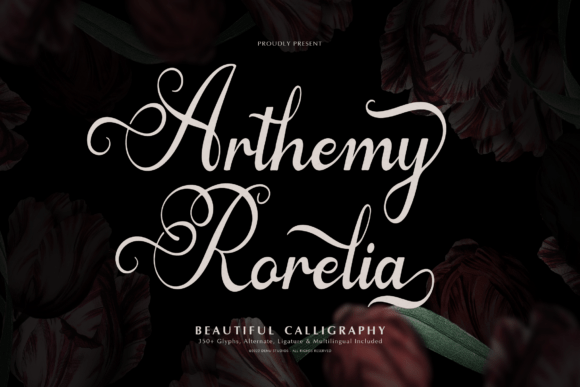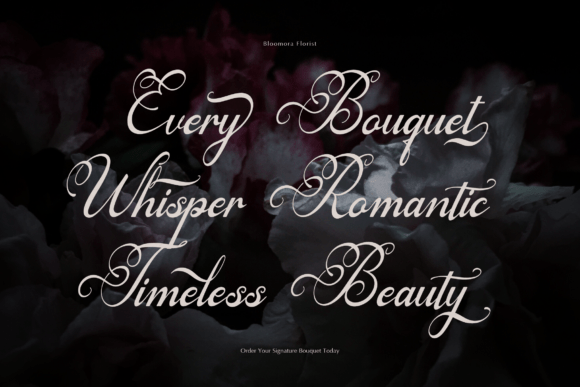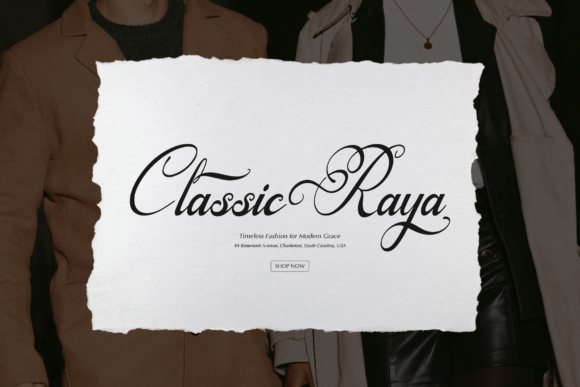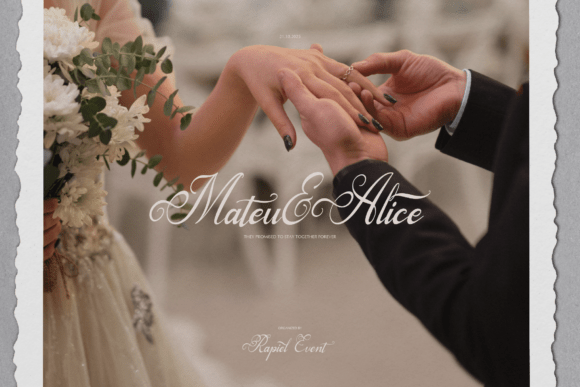
Arthemy Rorelia Font: Elegant Calligraphy for Wedding & Logo Design
About the Arthemy Rorelia Font
Elevate your designs with Arthemy Rorelia Font, a font that combines sophistication with readability. Arthemy Rorelia | Beautiful Calligraphy, from Denustudios, suitable for any projects such as: logos, branding projects, homeware designs, product packaging, mugs, quotes, posters, shopping bags, t-shirts, book covers, name card, invitation cards, greeting cards, label, photography, watermark, special events, and all your other lovely projects that need a Beautiful Calligraphy taste.
Arthemy Rorelia’s elegant calligraphic style excels in display applications such as logos, headlines, and short text blocks on packaging or posters. Its delicate strokes work beautifully for branding projects aiming for a sophisticated, feminine, or romantic feel. However, its low x-height and ornate letterforms make it unsuitable for body text or UI elements where readability is paramount.
Pairing Arthemy Rorelia with a clean sans-serif like Montserrat or a geometric sans-serif such as Futura provides a strong contrast, allowing the calligraphy to shine while maintaining legibility. For a warmer feel, consider pairing it with a serif like Garamond or a slightly more playful script font, but ensure the pairing retains sufficient visual contrast to avoid muddiness.
The font possesses a distinctly elegant and refined personality, making it ideal for brands focused on luxury, beauty, or handcrafted goods. Avoid using it for projects requiring a modern, minimalist, or playful aesthetic; its inherent delicacy demands a sophisticated context.